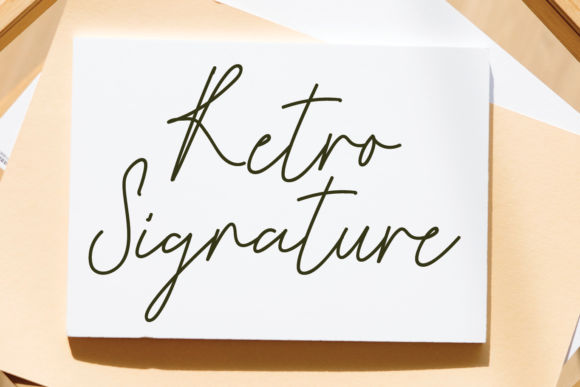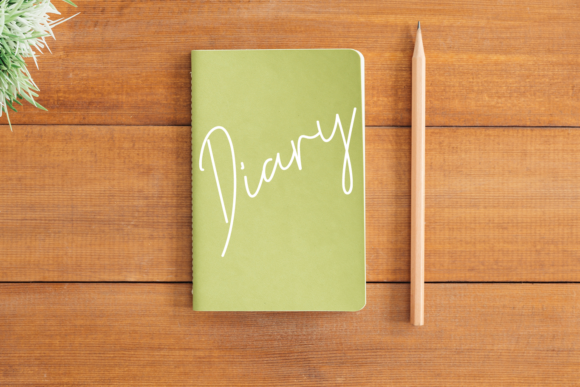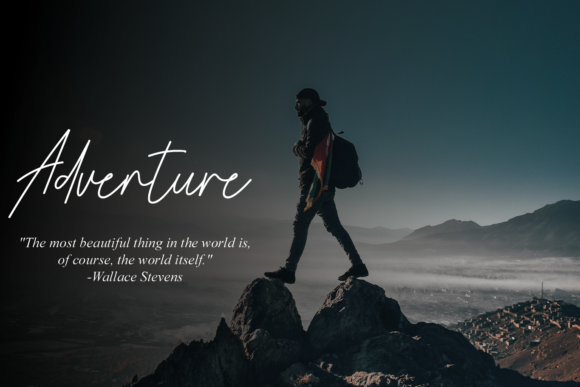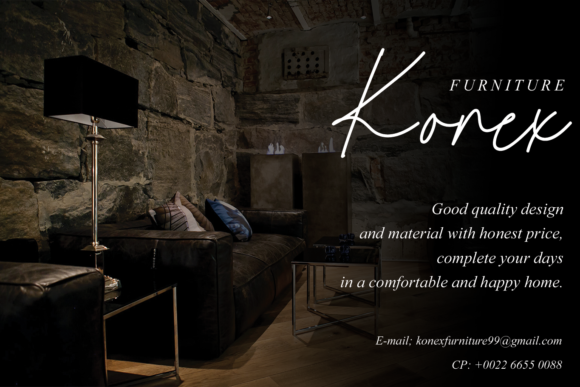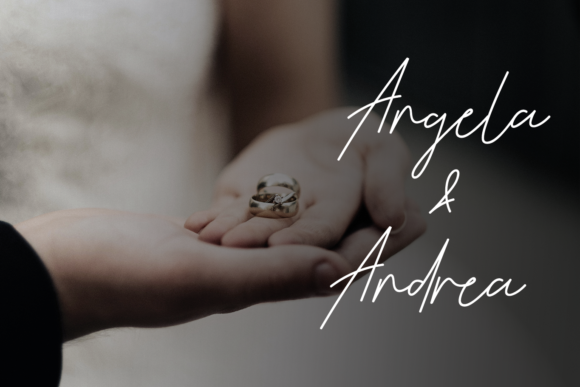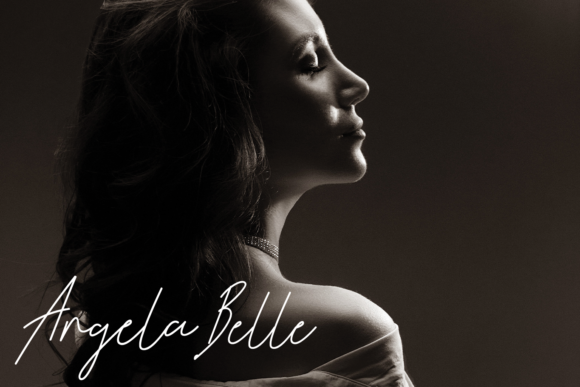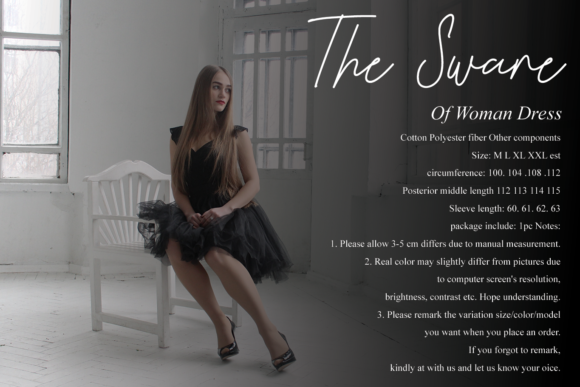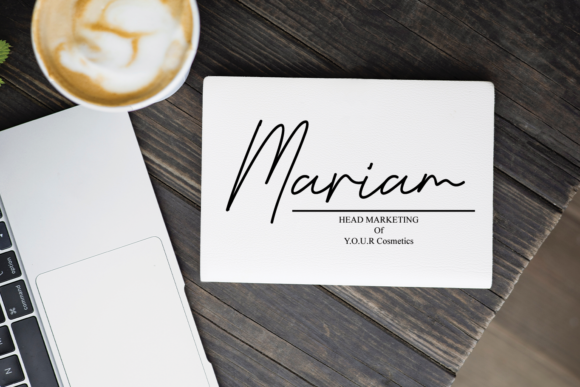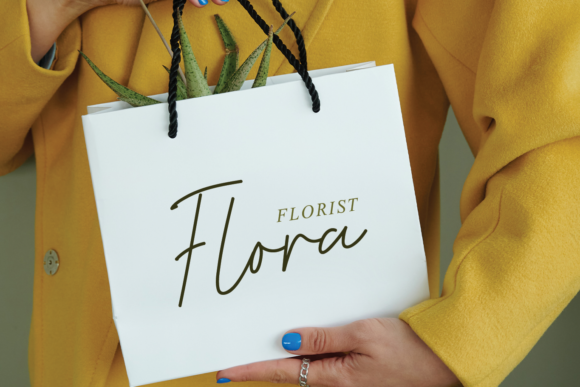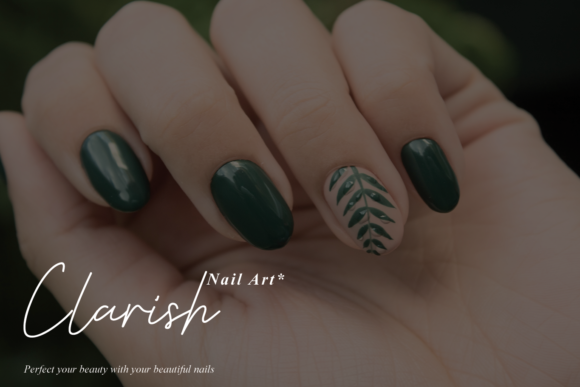
Retro Signature Font
About Retro Signature Font
Retro Signature is a thin lettered handwritten font, masterfully designed to become a true favorite. It maintains its classy calligraphic influences while feeling contemporary and fresh.